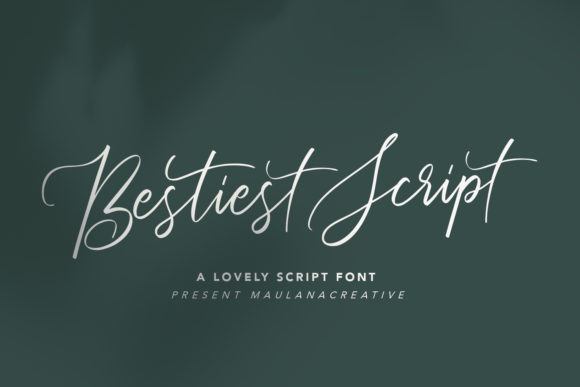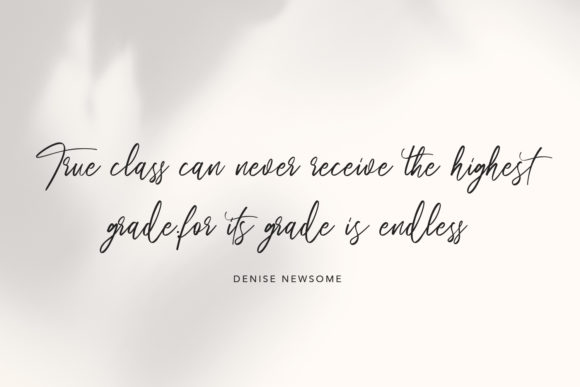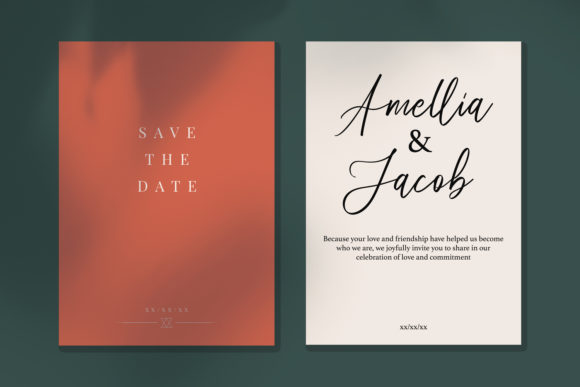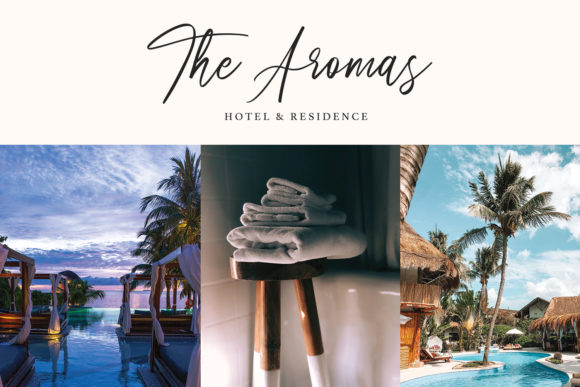
About Bestiest Script Font
Introducing Bestiest Script, an incredibly distinct, delicate, and timeless handwritten font that exudes charm and elegance. With its unique style, Bestiest Script looks stunning on a wide range of design projects, from wedding invitations and thank you cards to quotes, greeting cards, logos, business cards, and every other creation that craves a touch of handwritten allure.
Bestiest Script’s distinct and delicate style creates an air of sophistication and grace. Each letter is crafted with meticulous attention to detail, adding a touch of artistry to your designs. Whether you’re preparing for a grand wedding celebration or creating heartfelt greeting cards, Bestiest Script elevates your projects to the highest levels of beauty and authenticity.
The font’s versatility knows no bounds. As you explore Bestiest Script, you’ll discover how seamlessly it complements various design projects. From luxurious branding to delicate stationery, and from social media graphics to editorial layouts, Bestiest Script’s timeless elegance enhances your creations with its exquisite allure.
Imagine using Bestiest Script to craft exquisite wedding invitations. Its delicate and distinctive strokes become a statement of sophistication, setting the tone for a truly unforgettable event.
For branding and logos that demand a touch of elegance and personalization, Bestiest Script becomes a symbol of refined luxury. Its timeless charm allows you to create a unique and memorable brand identity.
In the realm of social media, Bestiest Script adds a touch of sophistication and allure to your posts and graphics. It captures attention with its beauty, creating an emotional connection with your audience.
Greeting cards and quotes become works of art with Bestiest Script. The font’s delicate script conveys emotions with finesse, making your messages truly captivating.
In conclusion, Bestiest Script is more than just a font; it’s an embodiment of elegance and distinction. With its timeless style and delicate touch, Bestiest Script becomes a powerful tool for all your design projects. Embrace the exquisite allure of Bestiest Script and watch as your creations come alive with authenticity and grace. Let your imagination flourish in the distinct and delicate embrace of Bestiest Script, the handwritten font that defines timeless beauty and artistic brilliance.